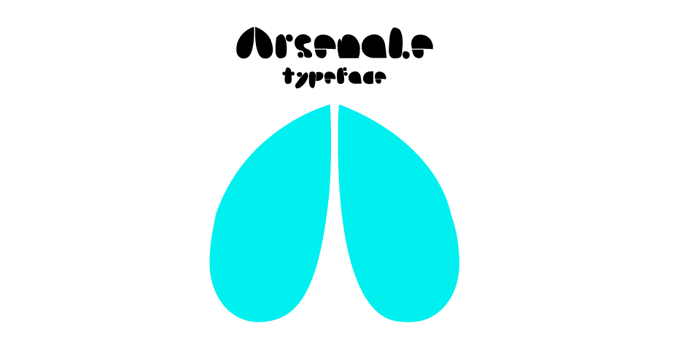
Arsenale Blue Font
Arsenale blue is a soft rounded font born by the collaboration of different graphic designers. It is inspired by the lightness of clouds in groovy and fancy way.